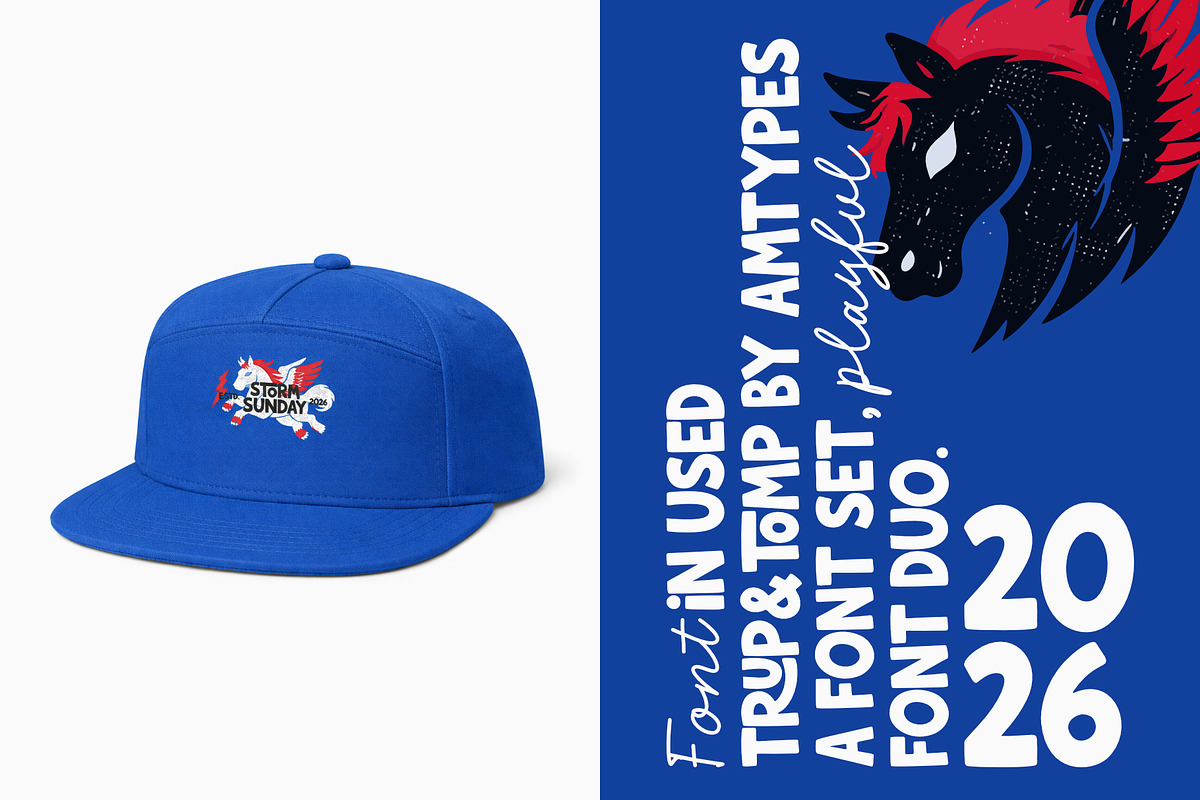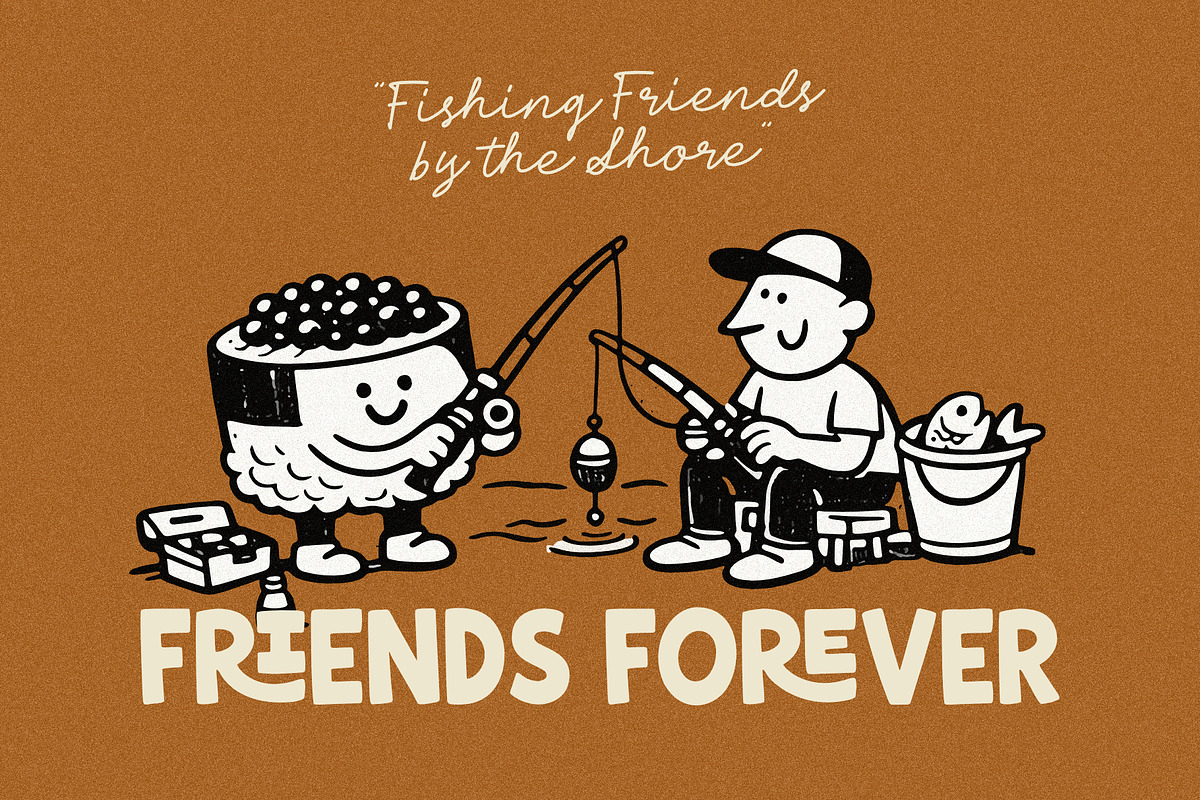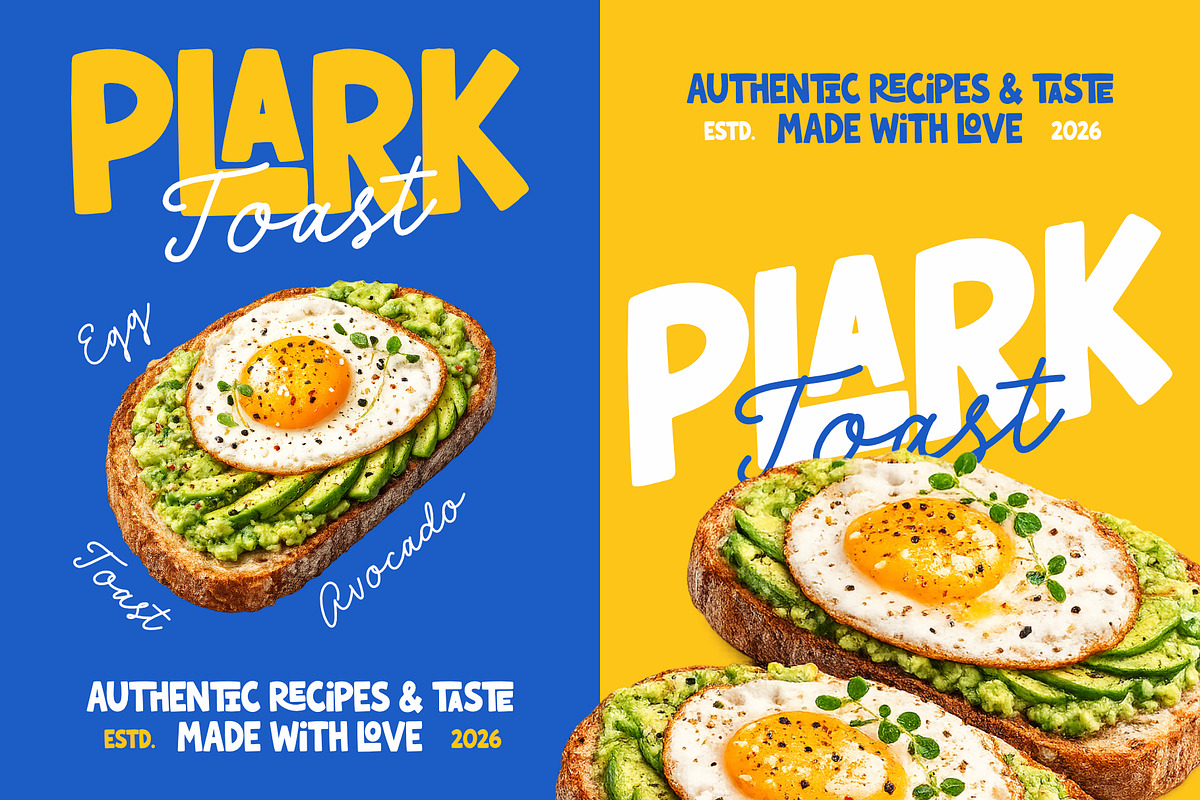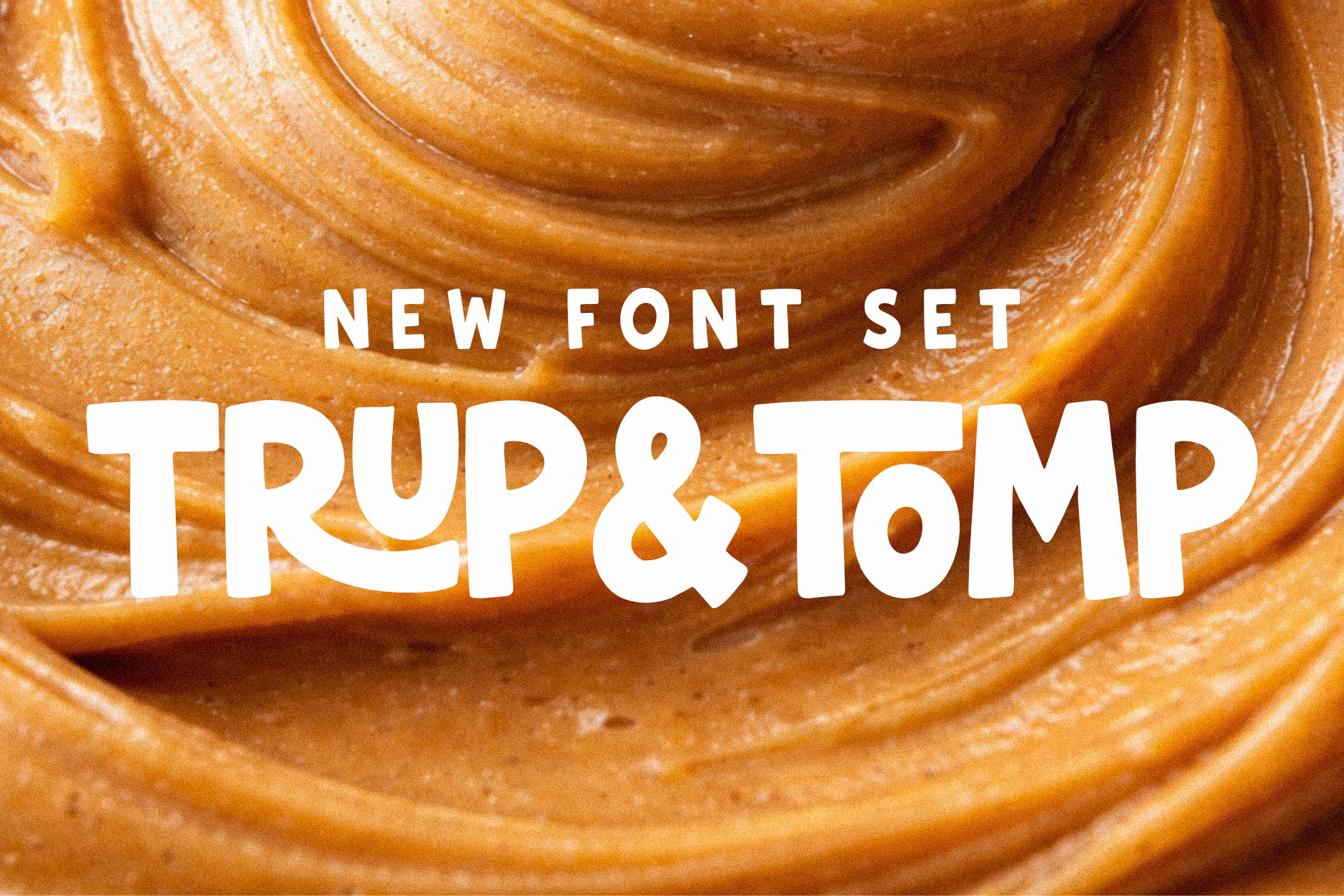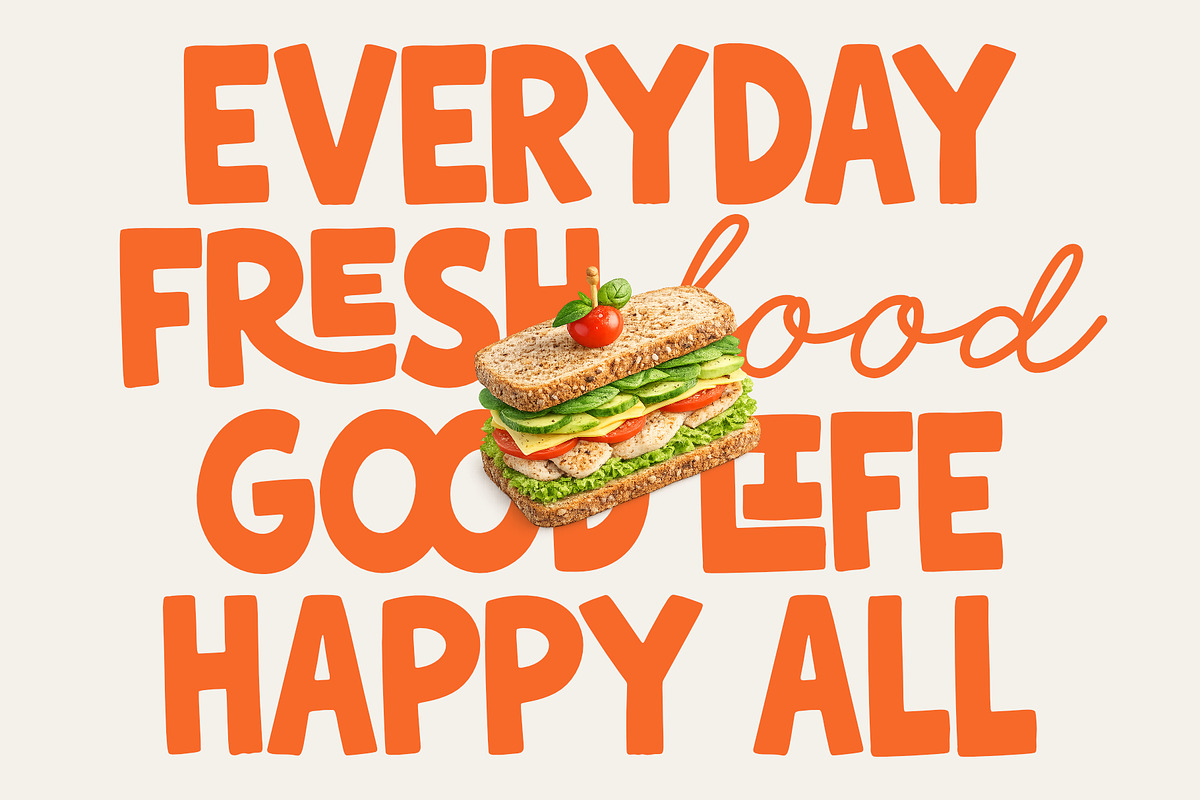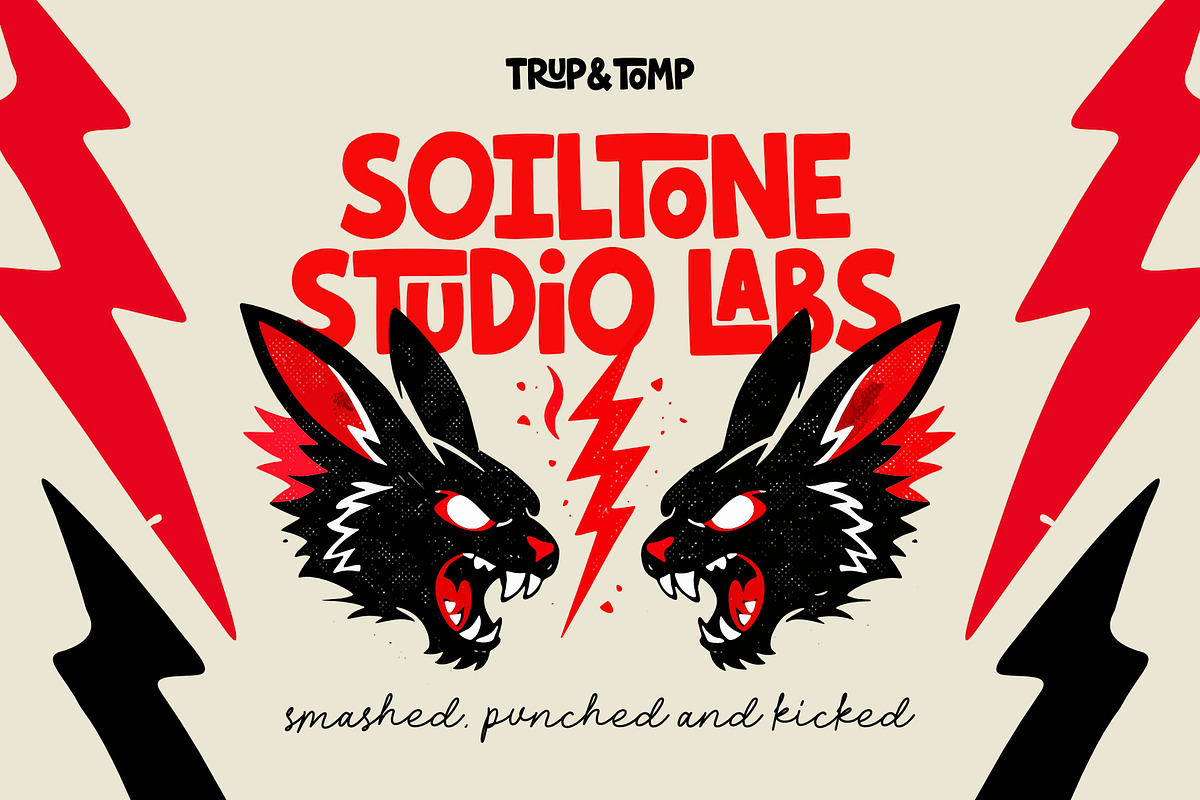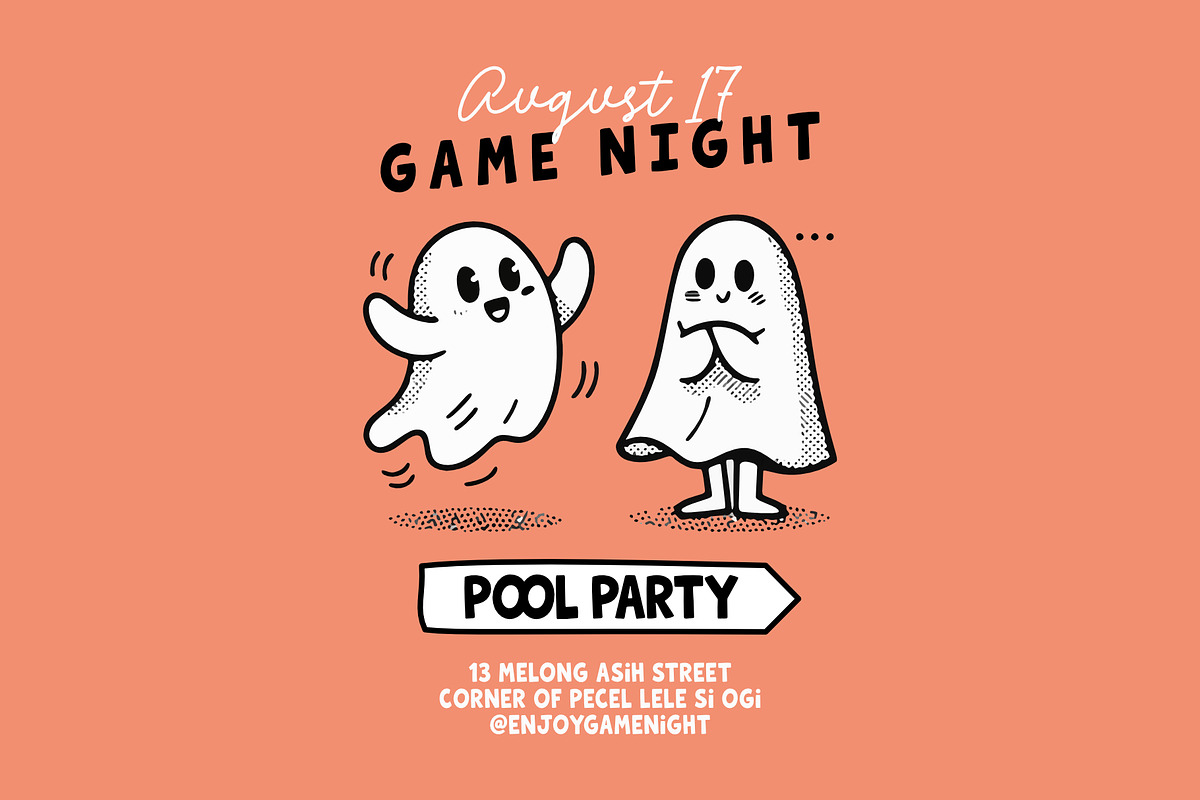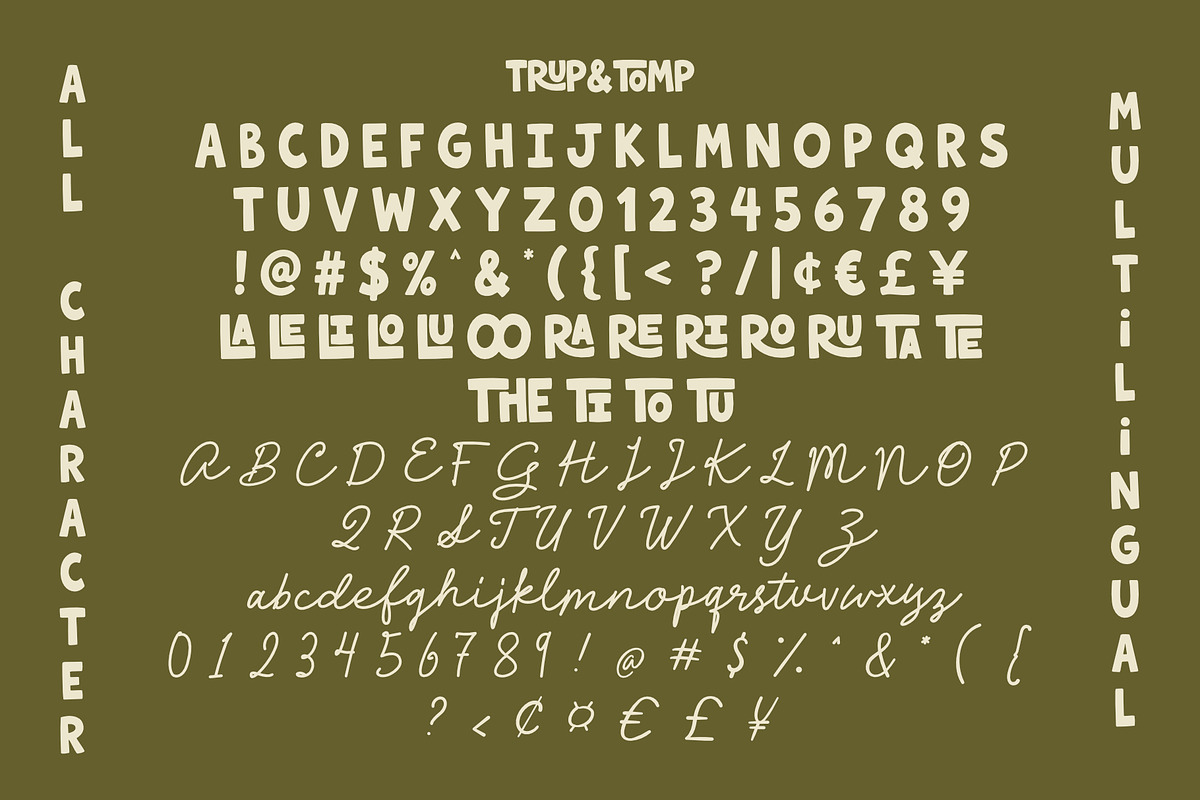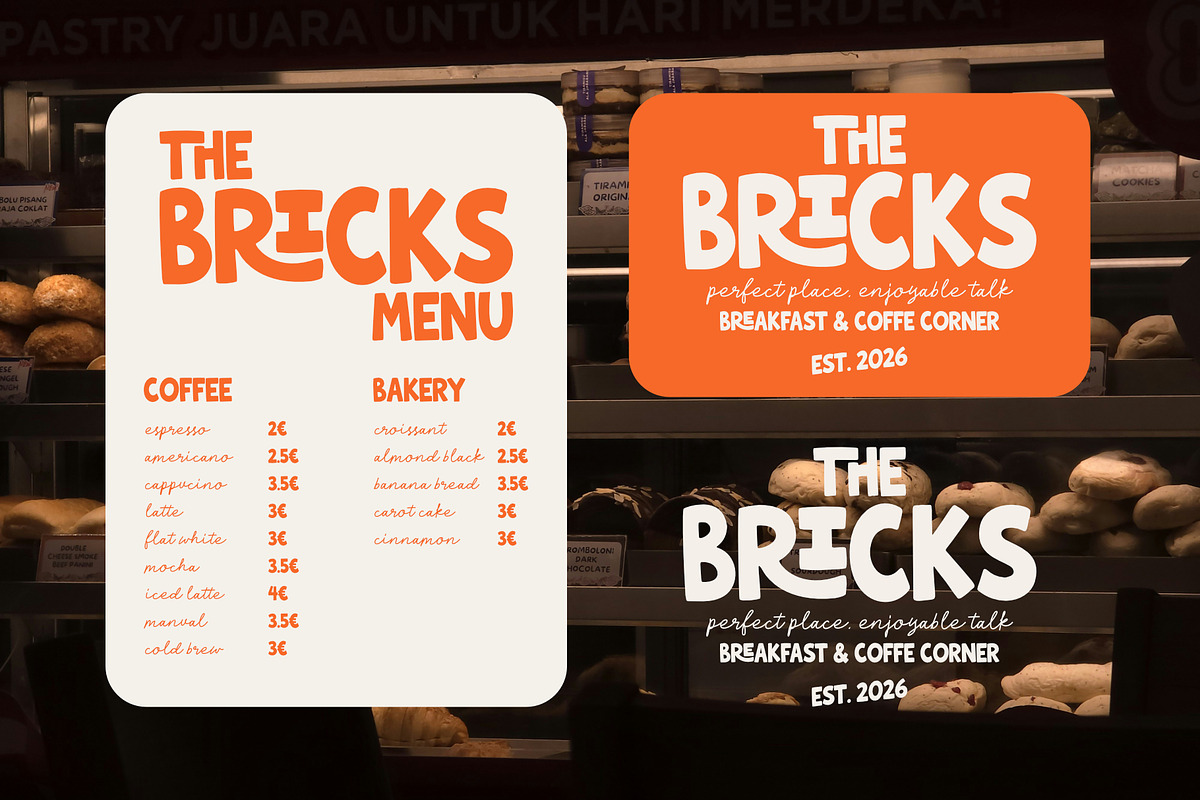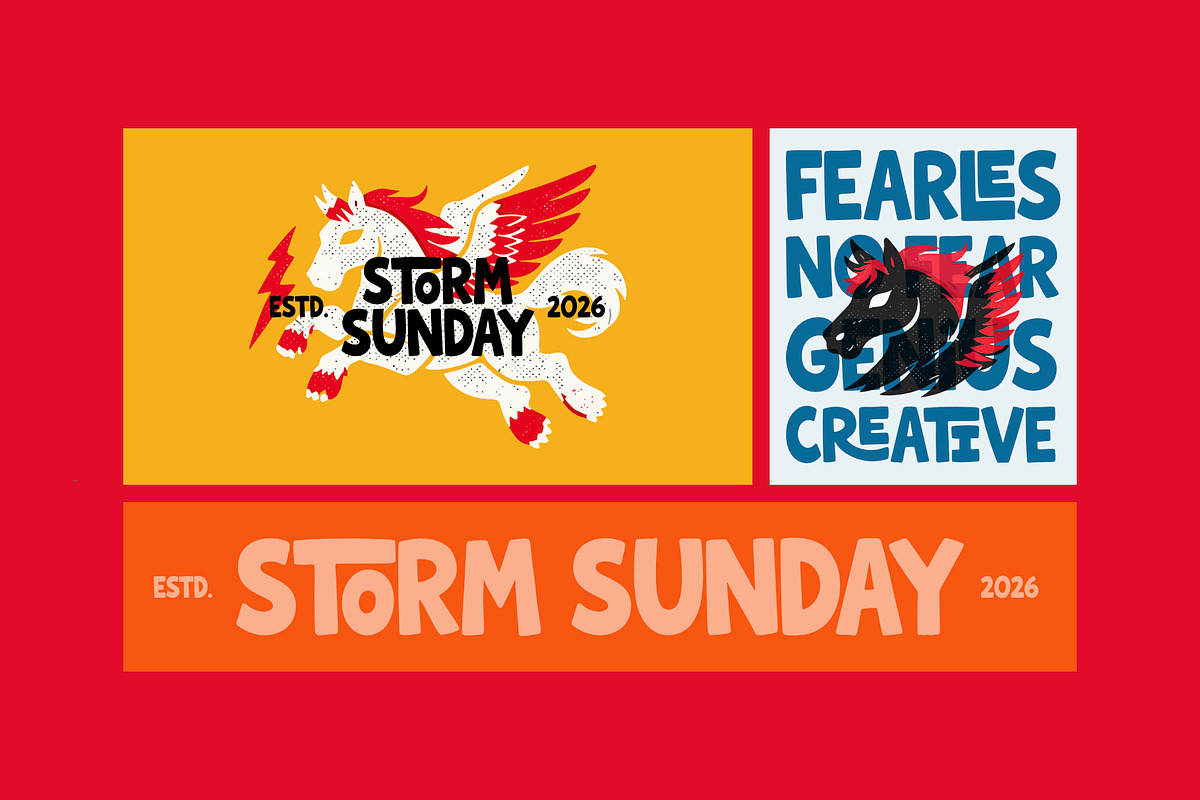
Trup & Tomp - Playful Font Set
TRUP & TOMP is a playful font duo designed to bring bold personality and warm character into your creative projects. This versatile pair combines a chunky, hand-drawn display sans with a smooth handwritten script, making it perfect for eye-catching headlines, branding, packaging, posters, social media, children’s designs, and modern lifestyle visuals.
The expressive shapes, friendly curves, and organic imperfections create an authentic handmade feel while staying highly readable. Use them together for dynamic contrast or separately for strong, distinctive typography that stands out across both digital and print work.
Features: • Bold playful display font • Handwritten script companion • Uppercase & lowercase characters • Numbers & punctuation • Multilingual support • Perfect for logos, packaging, posters, apparel, food branding, kids themes, and social media